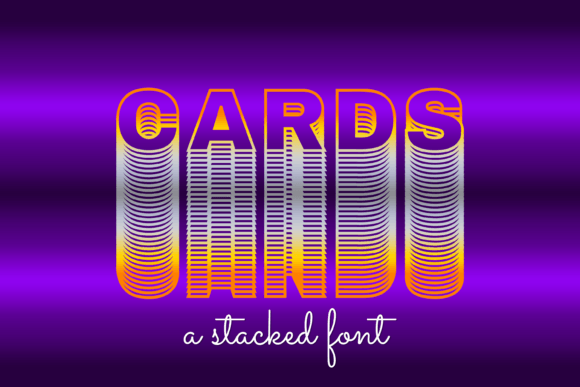
The Magic of Cards Font: Elevate Your Designs with a Lovely Touch
Whether you’re a designer, crafter, or creative hobbyist, Cards Font is an incredibly cool font that can add a lovely touch to any project. In this article, I’ll share my honest review, a practical guide on how to use it, and some helpful tips and tricks to get the most out of this amazing font.
My Honest Review of Cards Font
So, what makes Cards Font so special? Here are some things I love about it:
- ✨ Unique and playful design that’s perfect for cards, crafts, and creative projects
- 💫 Works well with both digital and print designs
- 🎨 Great for adding a personal touch to your creations
Of course, no font is perfect, and Cards Font has a few small quirks:
- 🤔 Limited availability of certain characters and glyphs
- ⚠️ May not work well with very long texts or paragraphs
The Backstory of Cards Font
Cards Font was designed by a team of creatives who wanted to create a font that would bring a touch of whimsy and playfulness to designs. Inspired by vintage cards and crafts, they poured their hearts and souls into creating a font that’s both unique and legible.
| Font Name | Cards Font |
| Author | WADLEN |
Q: What is Cards Font?
A: Cards Font is a unique and playful font that’s perfect for cards, crafts, and creative projects.